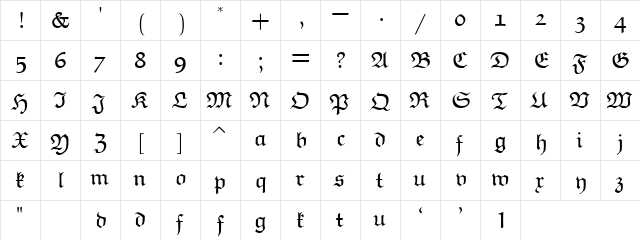
eufm8 Regular
Design Context for eufm8 Typeface
eufm8 is a composed and adaptable typeface that performs quietly and consistently across a wide range of design contexts.